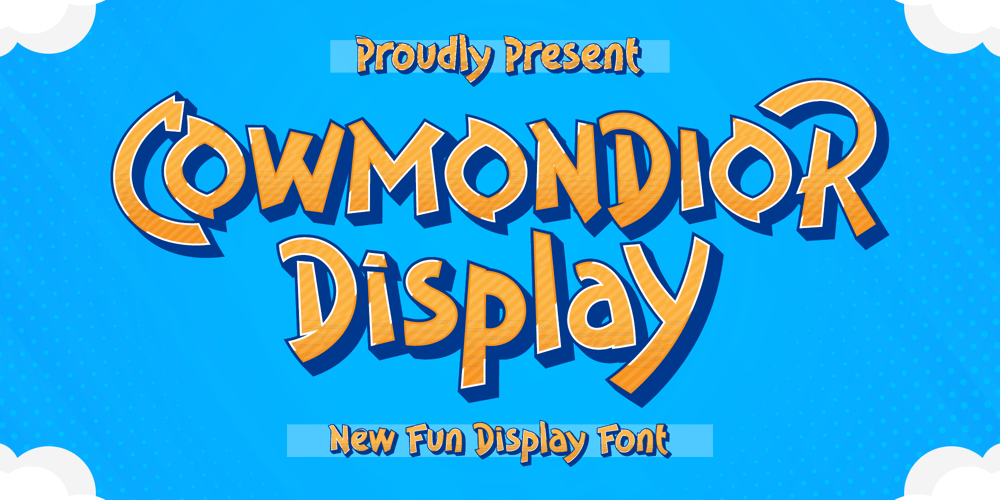
Cowmondior Font Family was designed by Heru Utama Putra and published by Letterena Studios. Cowmondior contains 2 styles and family package options. Cowmondior is a sweet and friendly display font. Its natural and uniquestyle makes it incredibly fitting to a large pool of designs. The only limit isyour imagination!